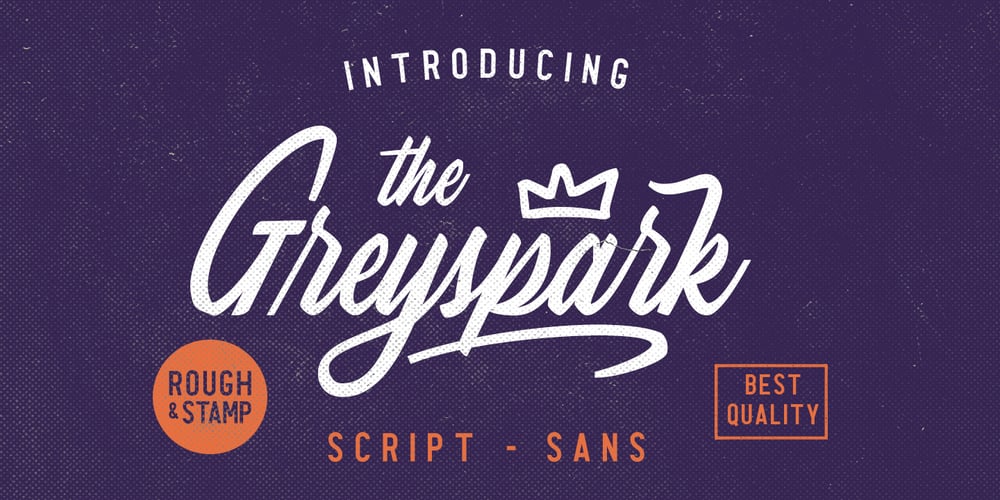
Greyspark Font Family was designed by Gustian Agung Asprilla and published by Rillatype. Greyspark contains 6 styles and family package options. The Greyspark Font is a great font selection for a big range of design projects. These fonts will add a beautiful and light retro charm to any design project! This font is perfect for branding logo, illustration, or apparel design. This font also support multilingual, number and symbol. This font comes in three style, regular, stamp, and block. The script style have the clean feel, the stamp gives you the aged feel with texture on it, and the block style have a rough edge.